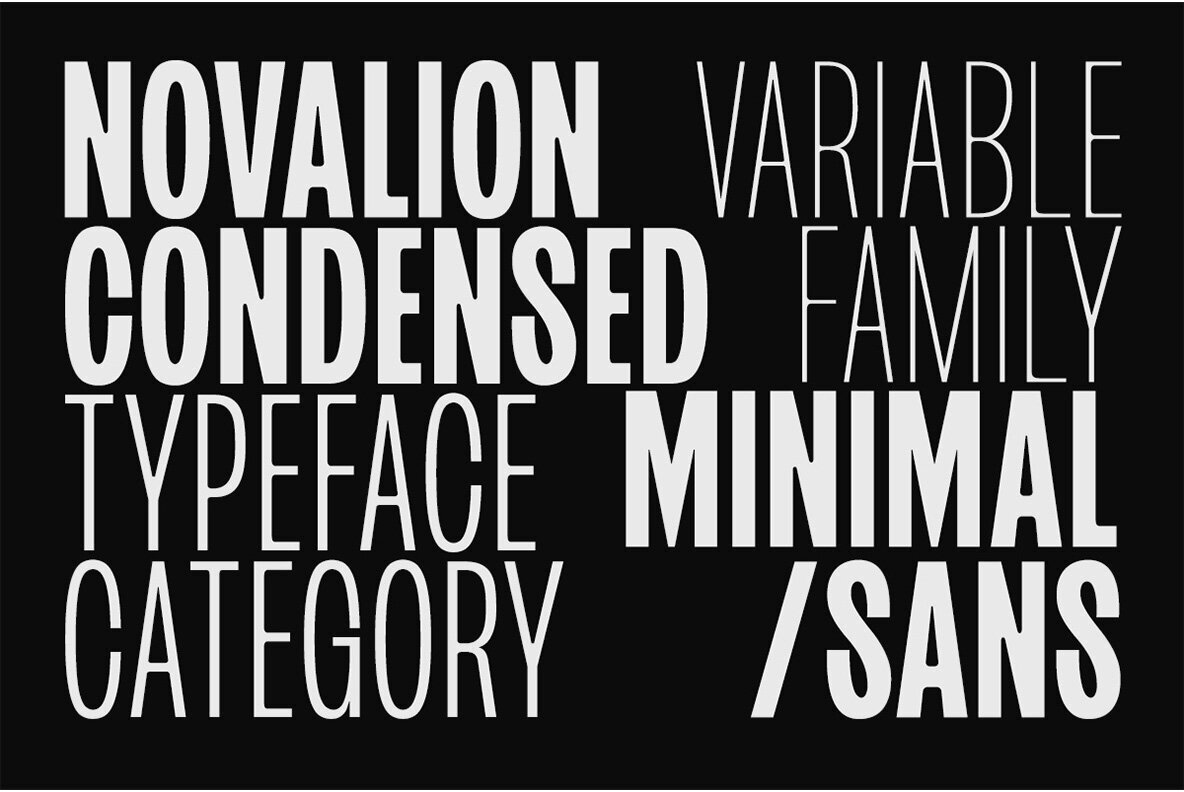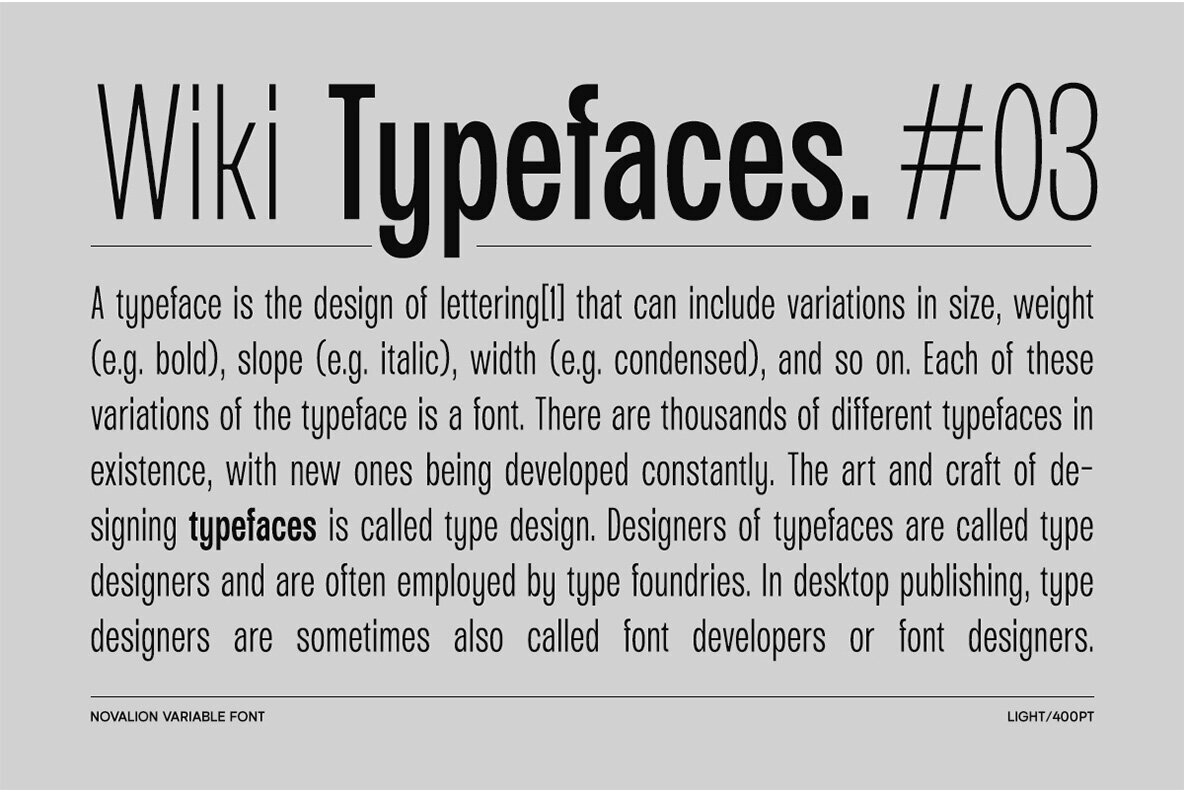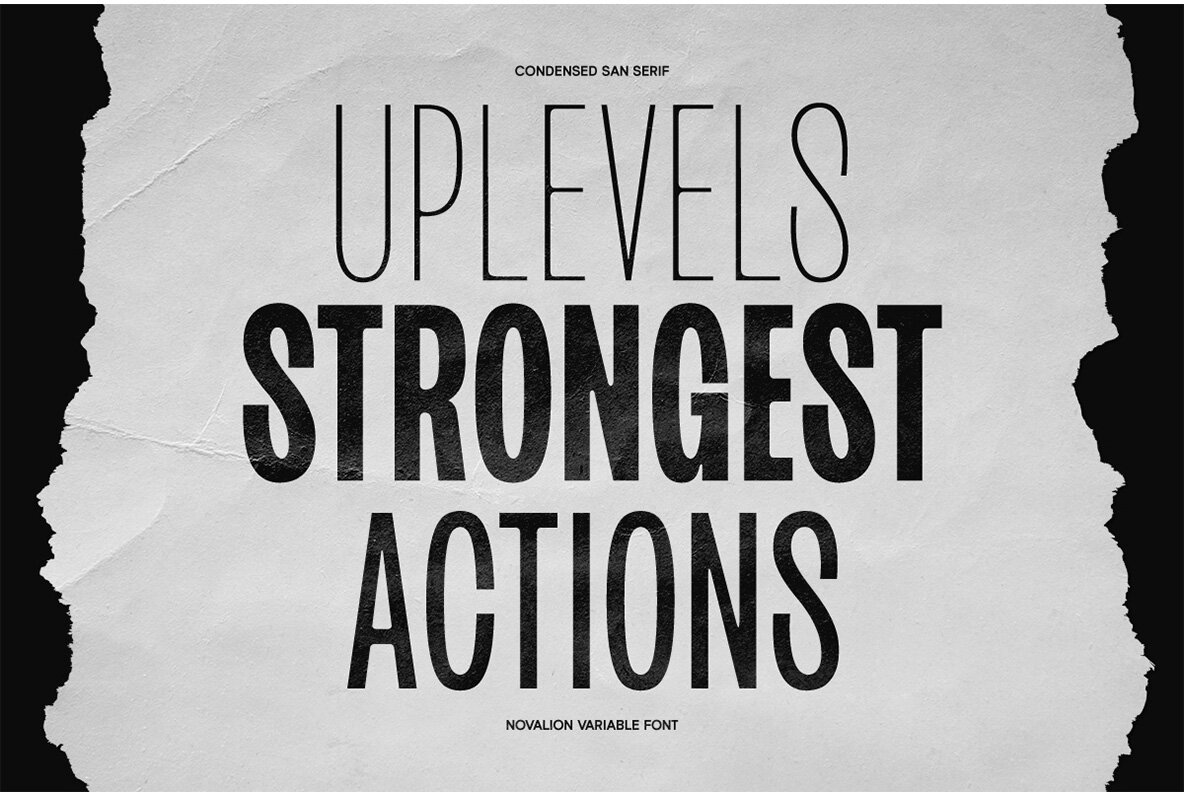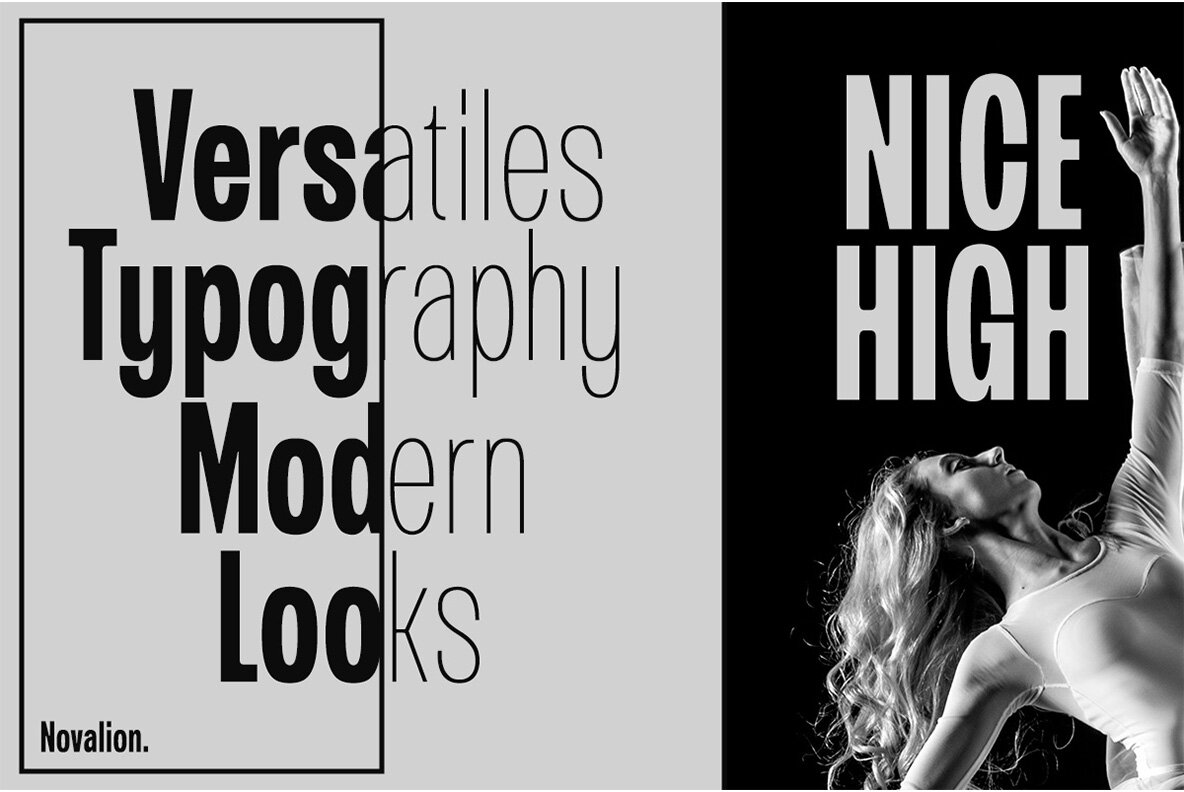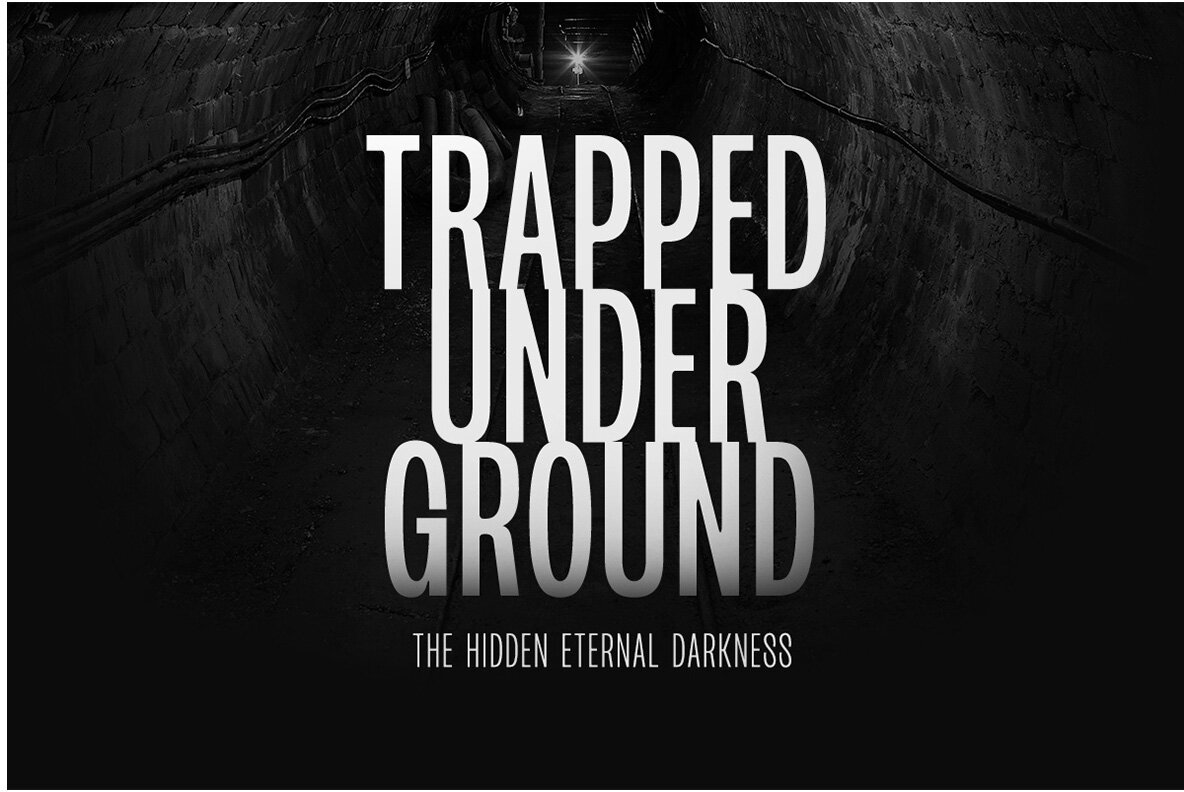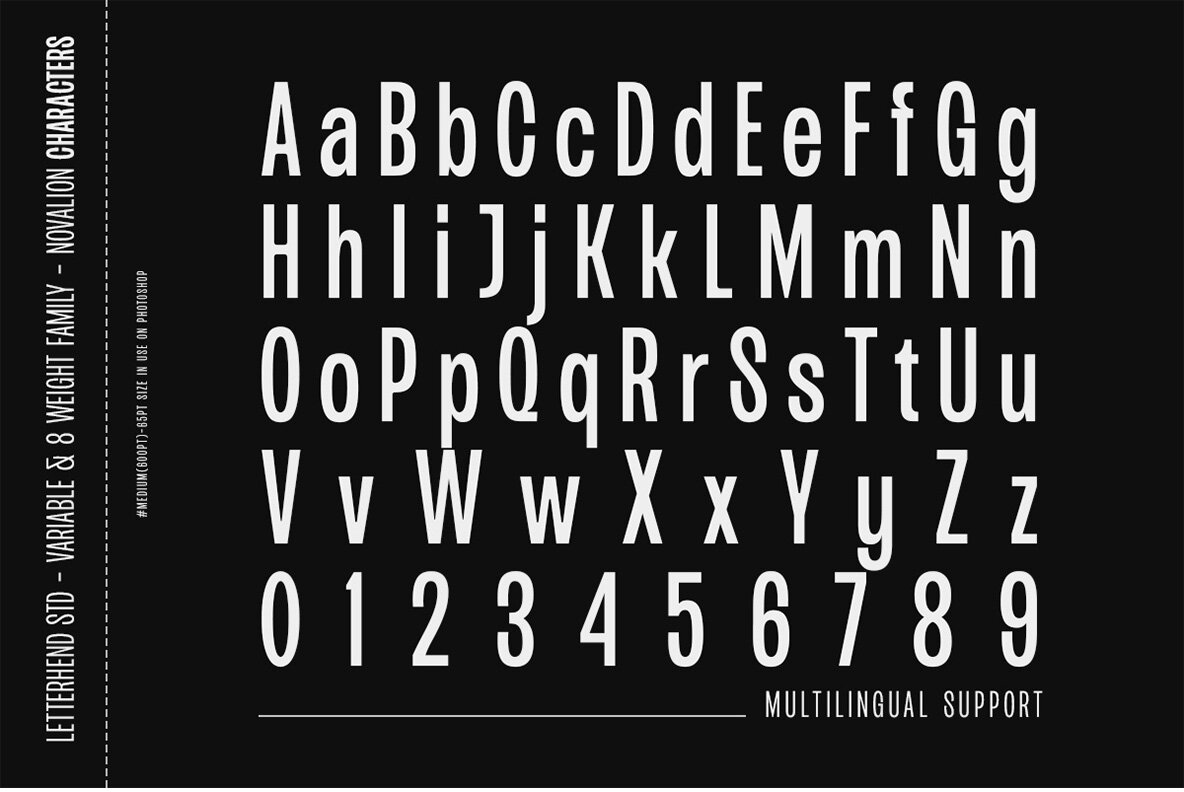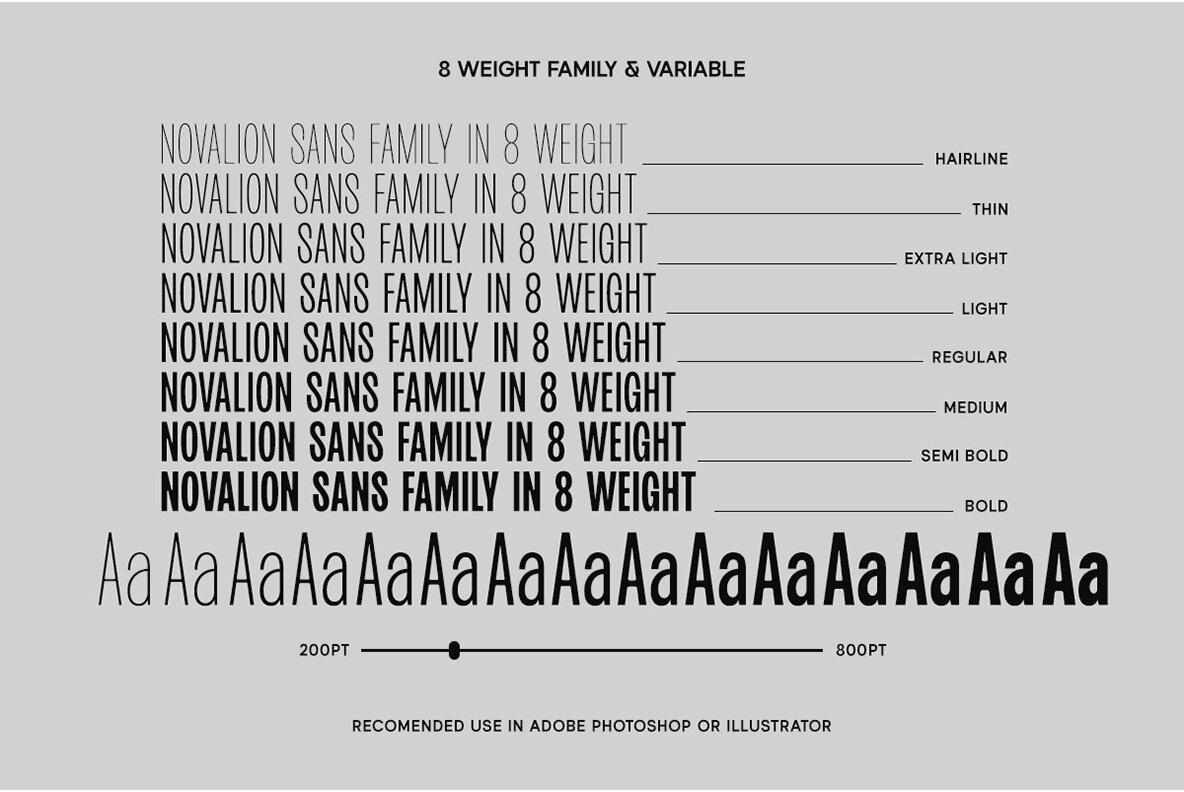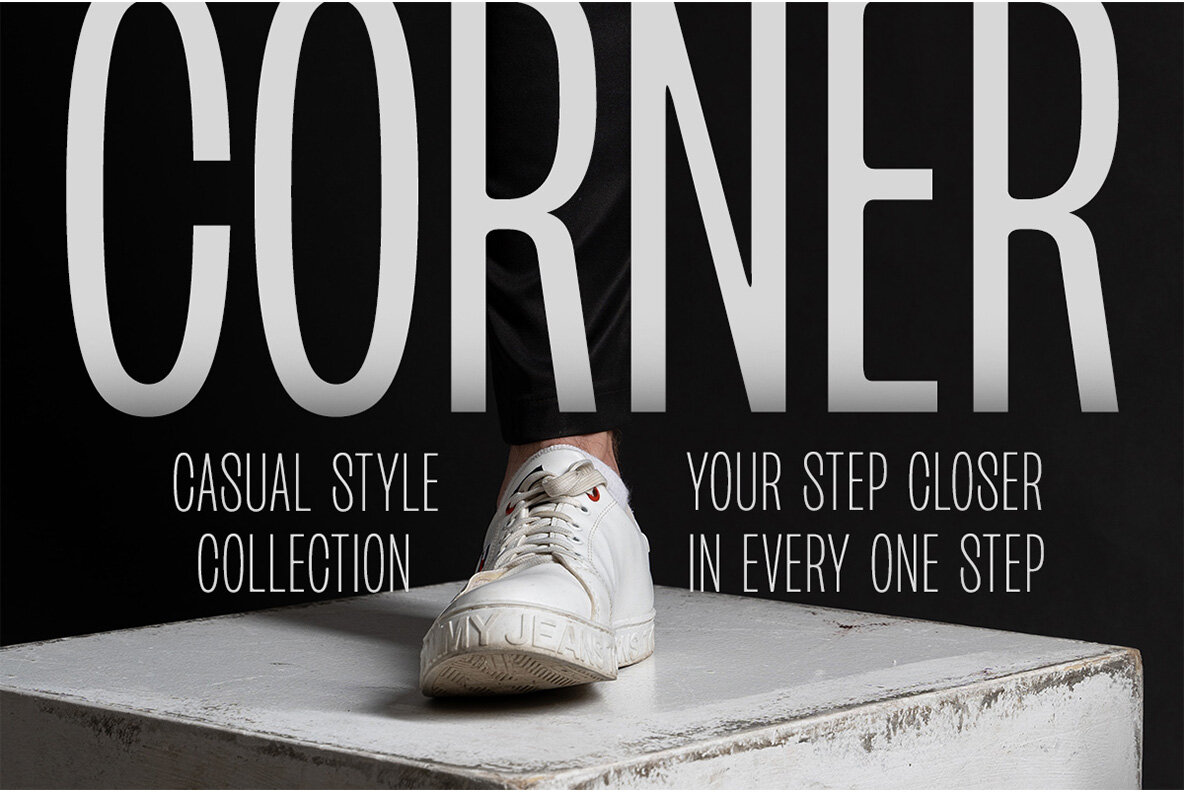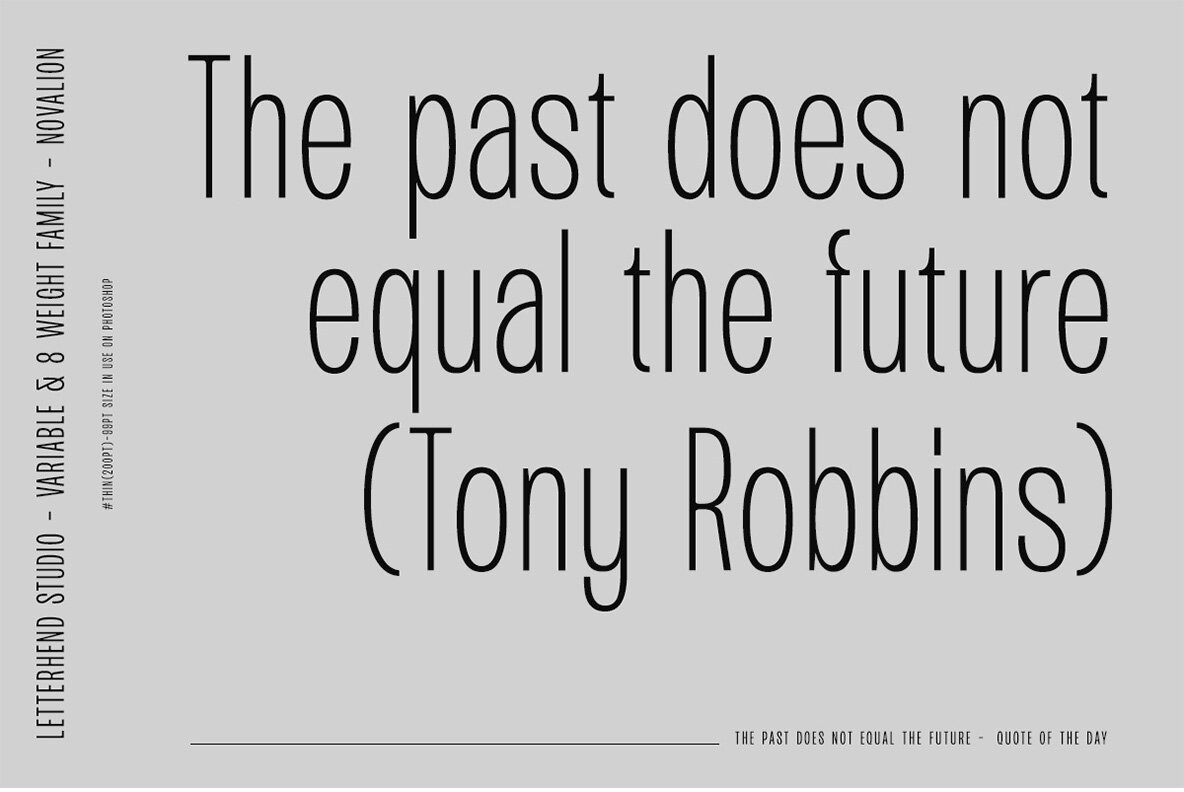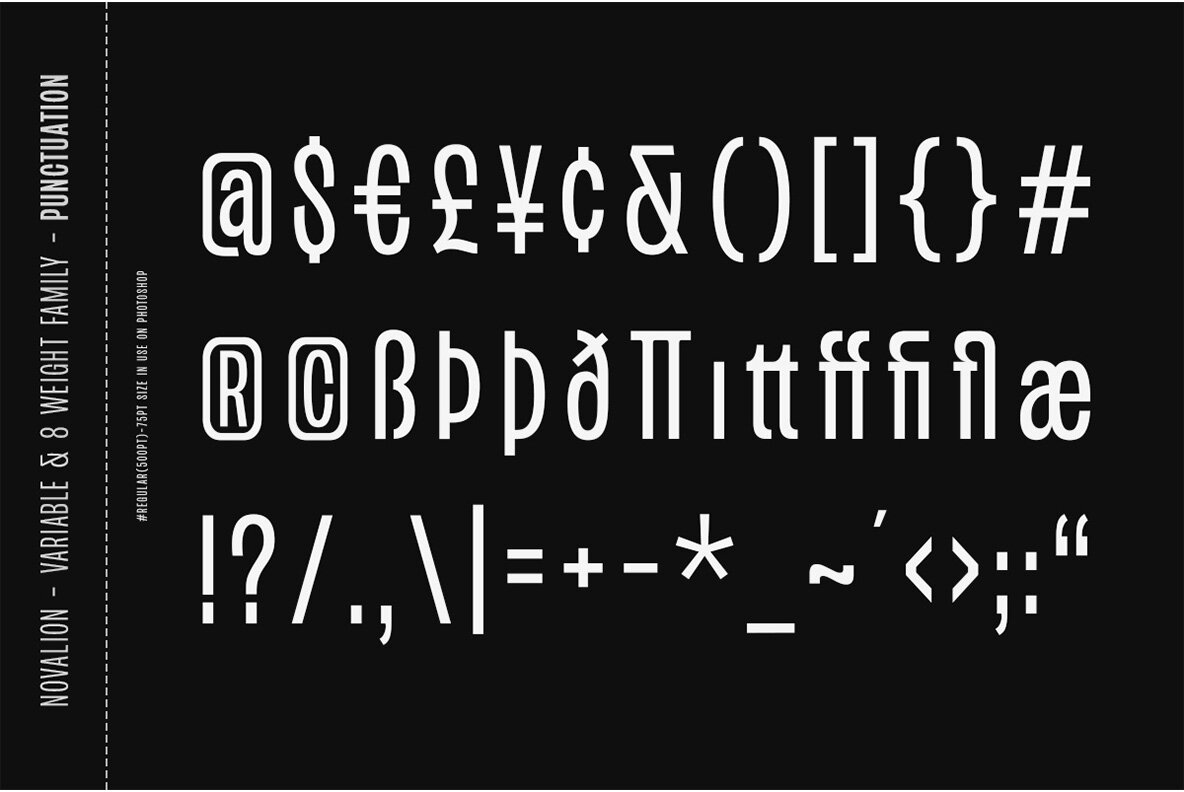
Novalion Font
Novation's a condensed variable sans-serif font with multiple weight options to choose from.
- variable font with 8 weight style
- uppercase & lowercase
- numbers and punctuation
- multilingual